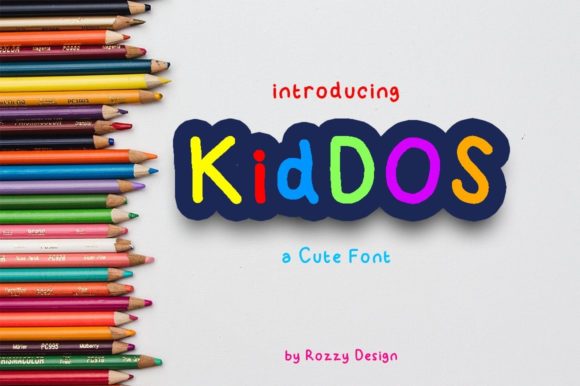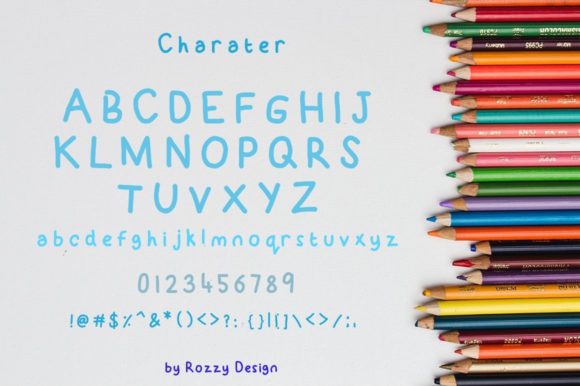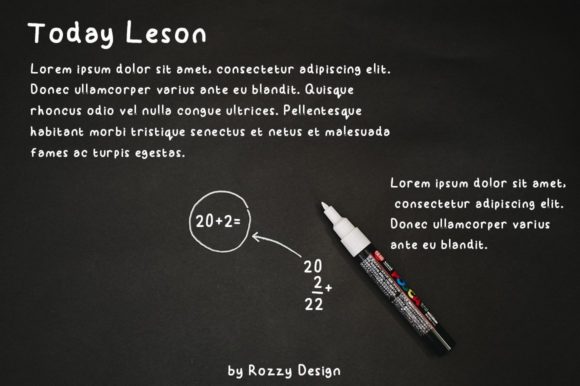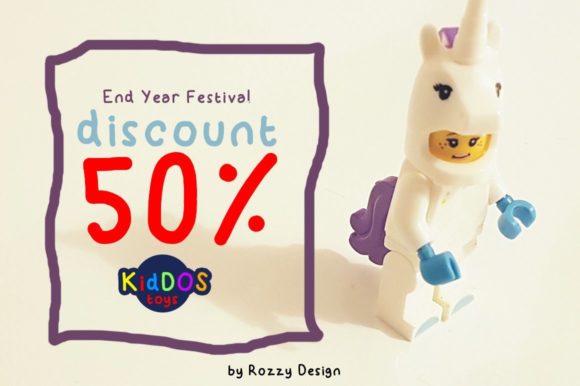
Kiddos Font
About Kiddos Font
Kiddos is a cute and friendly handwritten font. This font is perfect for children themed designs, especially when combined with bright colors.